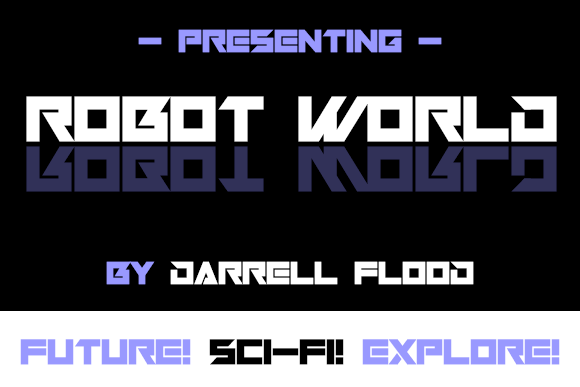
Introducing Robot World Font: The Ultimate Choice for Sci-Fi Themes and Hi-Tech Presentations
In the world of typography, fonts play a crucial role in conveying the tone and aesthetic of a brand, product, or project. When it comes to creating a futuristic and high-tech visual identity, the right font can make all the difference. This is where Robot World Font comes in – a cutting-edge, square-shaped font with sharp angles that’s specifically designed for sci-fi themes, alien adventures, and hi-tech presentations.
What is Robot World Font?
Robot World Font is a unique and modern sans-serif font that’s characterized by its geometric shape and sharp, angular lines. The font’s design is inspired by the futuristic and technological advancements of the robot world, making it perfect for projects that require a bold and avant-garde visual identity.
With its square shape and sharp angles, Robot World Font exudes a sense of innovation, precision, and cutting-edge technology. The font’s clean and minimalist design ensures that it remains legible and easy to read, even at small sizes, making it suitable for a wide range of applications, from digital screens to print materials.
Key Features and Benefits of Robot World Font
- Unique and Futuristic Design: Robot World Font boasts a distinctive and futuristic design that’s sure to grab attention and set your project apart from the rest.
- Highly Legible: The font’s clean and simple design ensures that it’s easy to read, even at small sizes, making it perfect for body text and captions.
- Versatile: Robot World Font is suitable for a wide range of applications, from digital screens to print materials, and can be used for both headlines and body text.
- Sci-Fi and Hi-Tech Themes: The font’s futuristic design makes it perfect for sci-fi themes, alien adventures, and hi-tech presentations, allowing you to create a cohesive and immersive visual identity.
Uses and Applications of Robot World Font
Robot World Font is a versatile font that can be used in a variety of contexts, including:
- Sci-Fi Movies and TV Shows: The font’s futuristic design makes it perfect for sci-fi movies and TV shows, allowing you to create a bold and immersive visual identity.
- Hi-Tech Presentations: Robot World Font is ideal for hi-tech presentations, such as product launches, tech conferences, and innovation showcases.
- Video Games: The font’s bold and futuristic design makes it suitable for video games, particularly those with sci-fi or futuristic themes.
- Branding and Advertising: Robot World Font can be used for branding and advertising campaigns that require a bold and attention-grabbing visual identity.
How Robot World Font Compares to Other Fonts
When it comes to futuristic and sci-fi fonts, there are several options available. However, Robot World Font stands out from the rest due to its unique design and versatility. Here’s how it compares to other popular fonts:
- Arial and Helvetica: While both Arial and Helvetica are popular sans-serif fonts, they lack the futuristic and bold design of Robot World Font.
- Impact and Museo: Impact and Museo are both bold and futuristic fonts, but they can be too heavy-handed for certain applications. Robot World Font strikes a perfect balance between boldness and legibility.
- Akzidenz-Grotesk and Futura: Akzidenz-Grotesk and Futura are both geometric sans-serif fonts, but they lack the sharp angles and futuristic design of Robot World Font.
Tips for Using Robot World Font Effectively
To get the most out of Robot World Font, here are some tips to keep in mind:
- Use it for Headlines and Titles: Robot World Font is perfect for headlines and titles, where its bold and futuristic design can shine.
- Pair it with a Serif Font: For body text, consider pairing Robot World Font with a serif font to create a nice contrast and add visual interest.
- Experiment with Colors and Textures: Don’t be afraid to experiment with different colors and textures to add depth and visual interest to your design.
- Keep it Consistent: To create a cohesive visual identity, use Robot World Font consistently across all your design elements.
In conclusion, Robot World Font is a unique and versatile font that’s perfect for sci-fi themes, alien adventures, and hi-tech presentations. Its bold and futuristic design makes it stand out from the rest, while its clean and minimalist aesthetic ensures that it remains legible and easy to read. By following the tips outlined above, you can use Robot World Font to create a bold and immersive visual identity that sets your project apart from the rest.